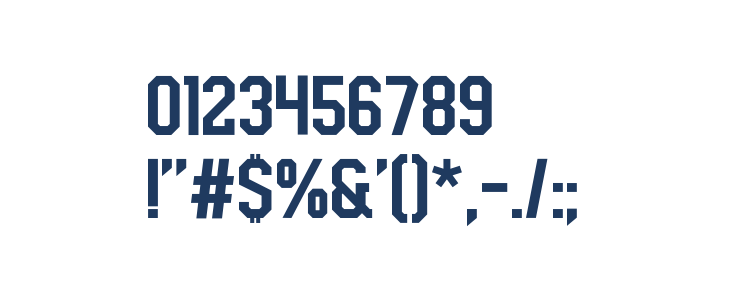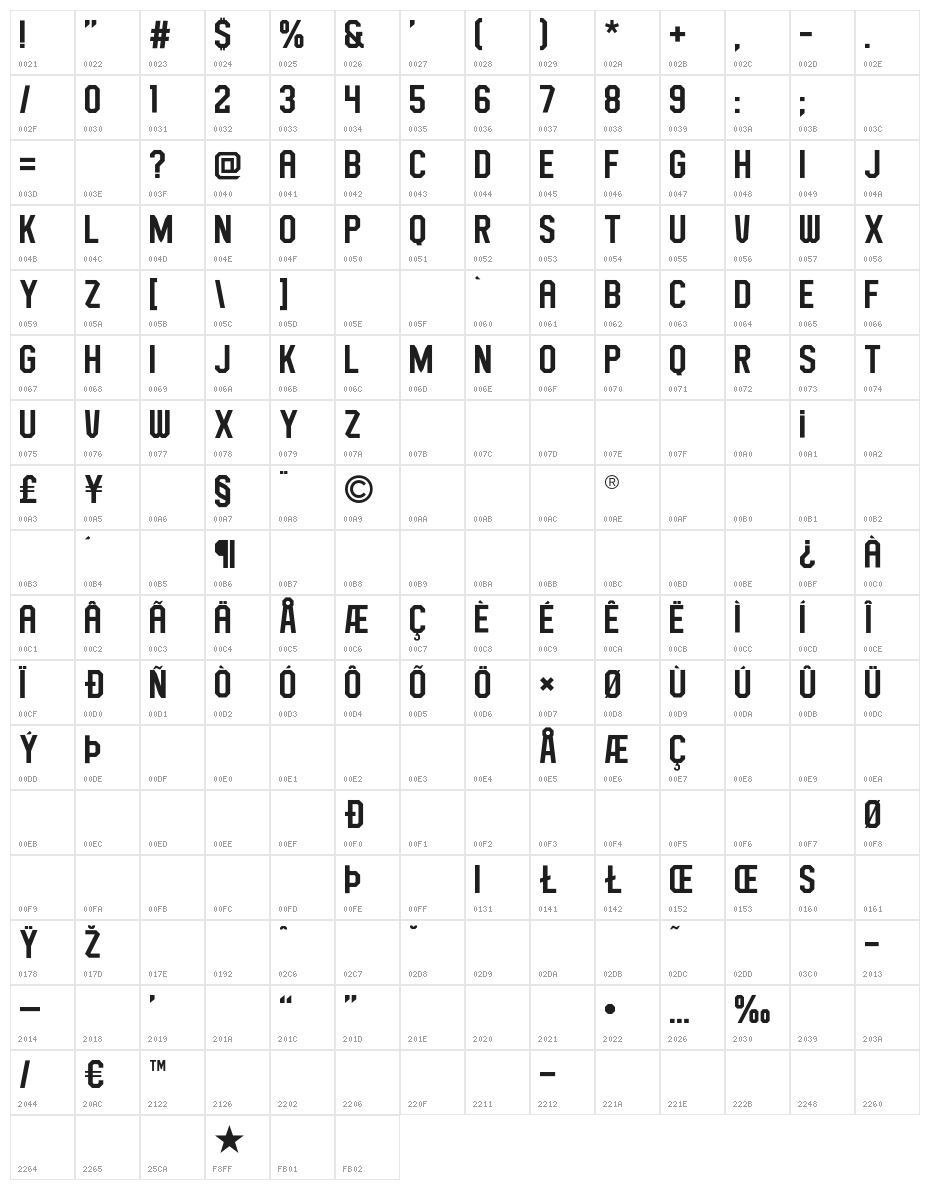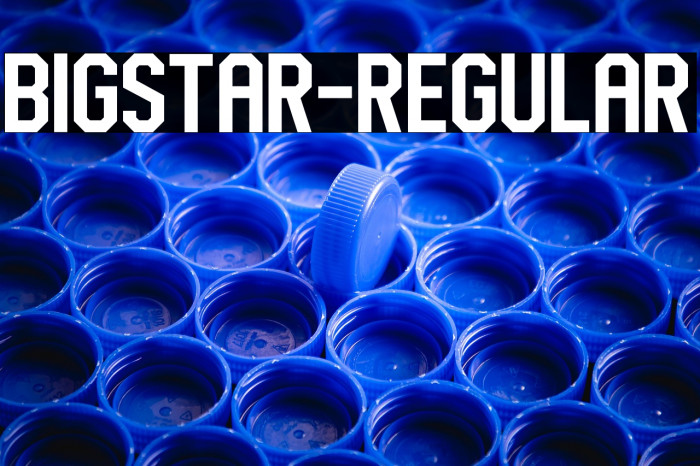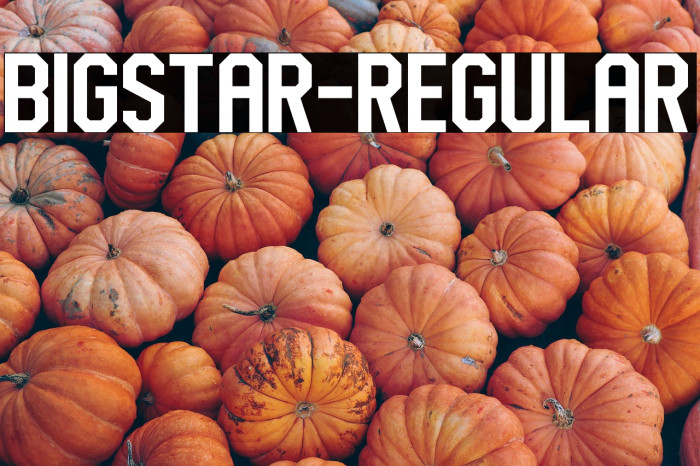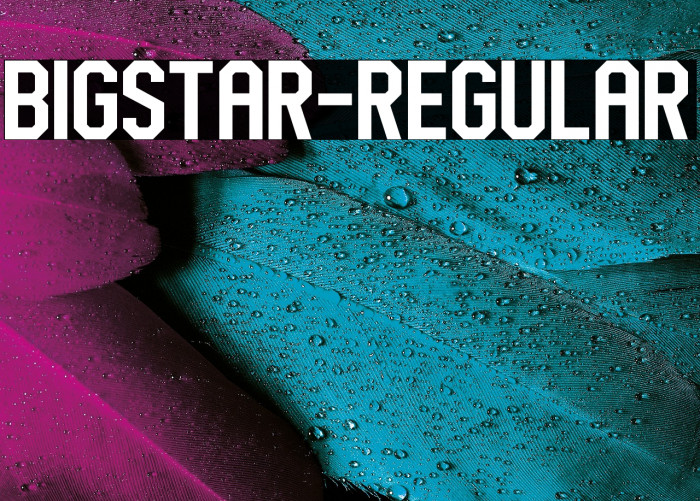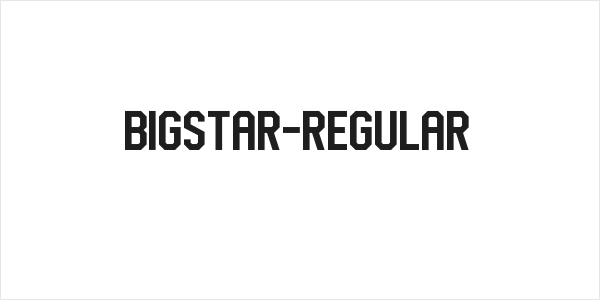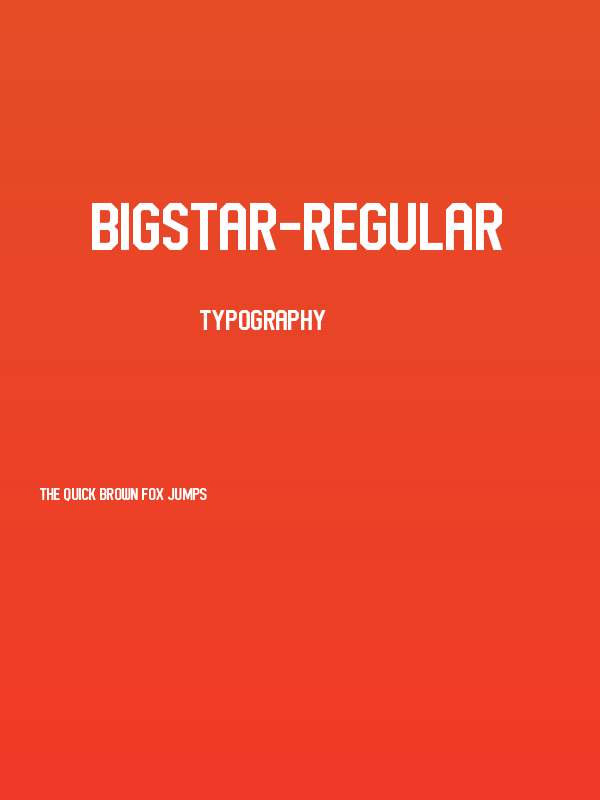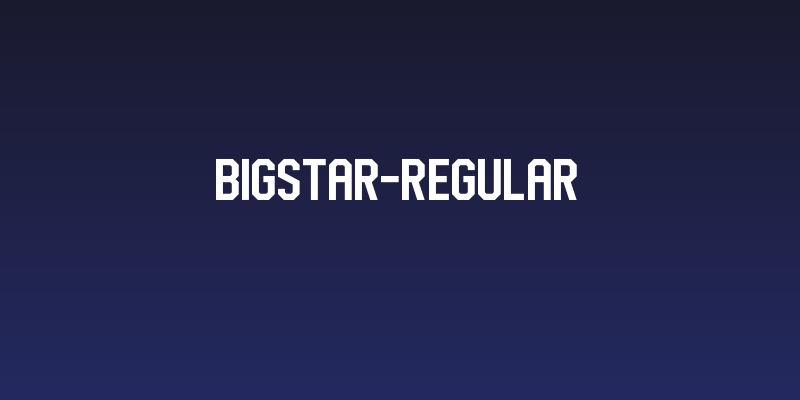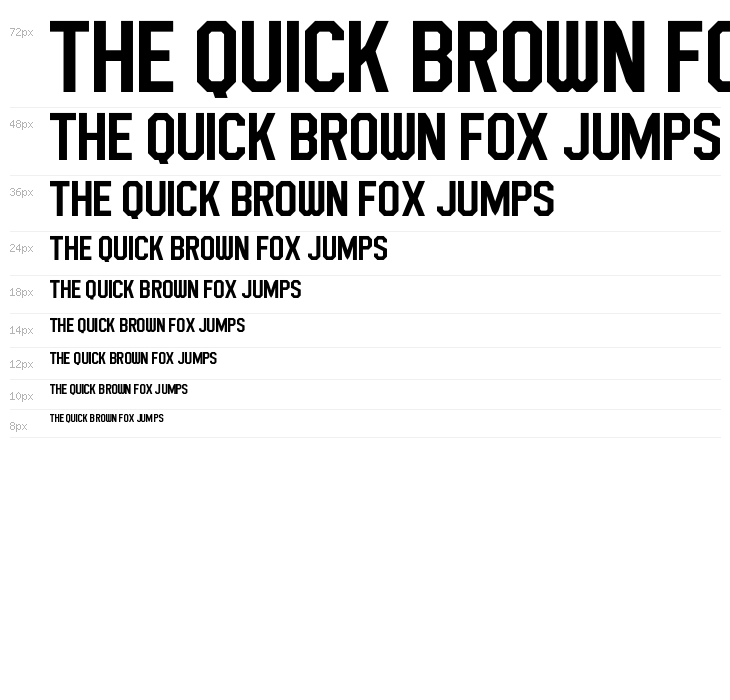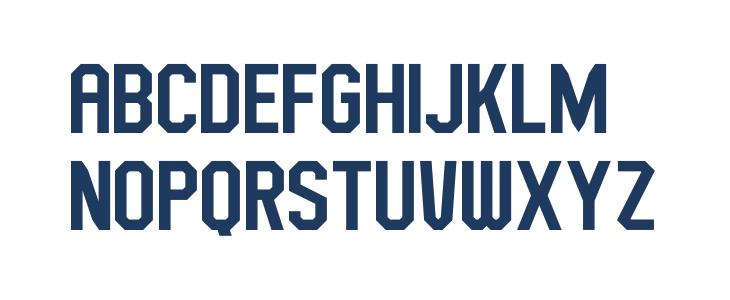
BigStar-Regular Font
BigStar-Regular Description
This font features a bold, geometric design with strong, angular lines and a modern aesthetic. The uppercase letters are uniform in height, with sharp edges and a blocky appearance that conveys strength and stability. The numbers and special characters maintain this bold, structured style, ensuring consistency across all glyphs. The font's design is reminiscent of industrial or sports-themed typography, making it suitable for impactful and attention-grabbing text.
| Proposed Projects | Ideal for sports branding, posters, headlines, and any project requiring a strong, impactful typeface. |